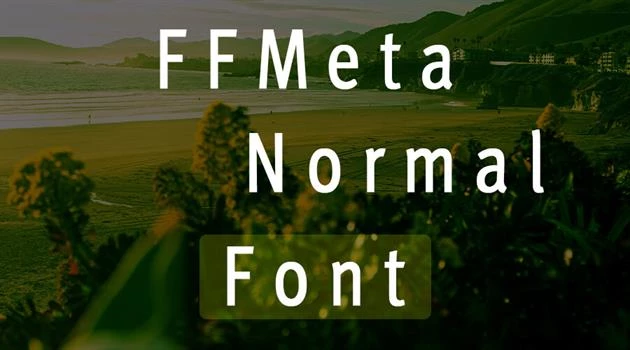
FF Meta is a humanist sans-serif font designed by Erik Spiekermann, Oded Ezer, and Akaki Razmadze. FF Meta font is a part of the FF Meta Super Family. According to Spiekermann, The purpose of the FF Meta was to create a font that was opposite to the “Helvetica” font.
FF Meta was first called PT55, created for the West German Post Office in 1985. Later Erik Spiekermann Expand his design include more weights and styles and release as FF Meta in1990.
Throughout the nineties, the FF meta was accepted by the international design community. A general feature of FF Meta is relatively open apertures and a more folded-up appearance. For these two features, it is completely different from “Helvetica”. FF Meta has both lining and old-style figures with 31 styles.
Numerous corporations and other companies have adopted FF Meta as their corporation typeface for signatures or logos. So it can be said that it is very useful for signatures and logos.
Since 2010, The Greek government has been using FF Meta Greek as their official typeface. From this, we can understand the importance of this font. Also, Imperial College London, Mozilla Corporation, Mozilla Foundation, The University of Hull uses FF Meta Serif alongside FF Meta for their logos.
What type of font is FF Meta?
Ans: FF Meta is a humanist sans-serif font and a part of the FF Meta Super Family.